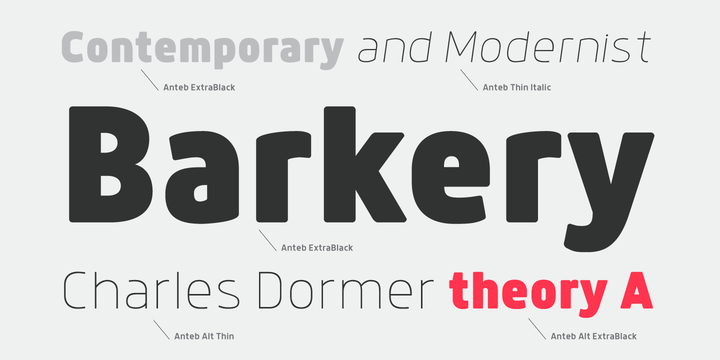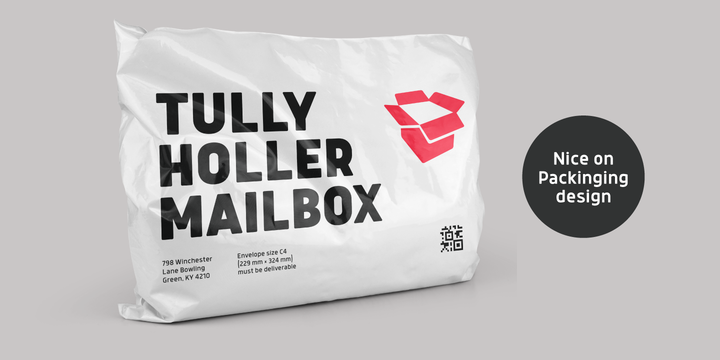
Anteb font family is one of those large and useful families that you really cant miss if you are looking for typeface combining originality and legibility.
Anteb is one of these a sans serif with modern look designed very smart with rounded corner.
It is developed in 10 separate weights ranging from Thin to ExtraBlack, each coming with Alternate version, which is well suited for a variety of typographic applications such as headlines and small texts.
The Anteb font family supports multiple languages and is available as both webfont and desktop font.